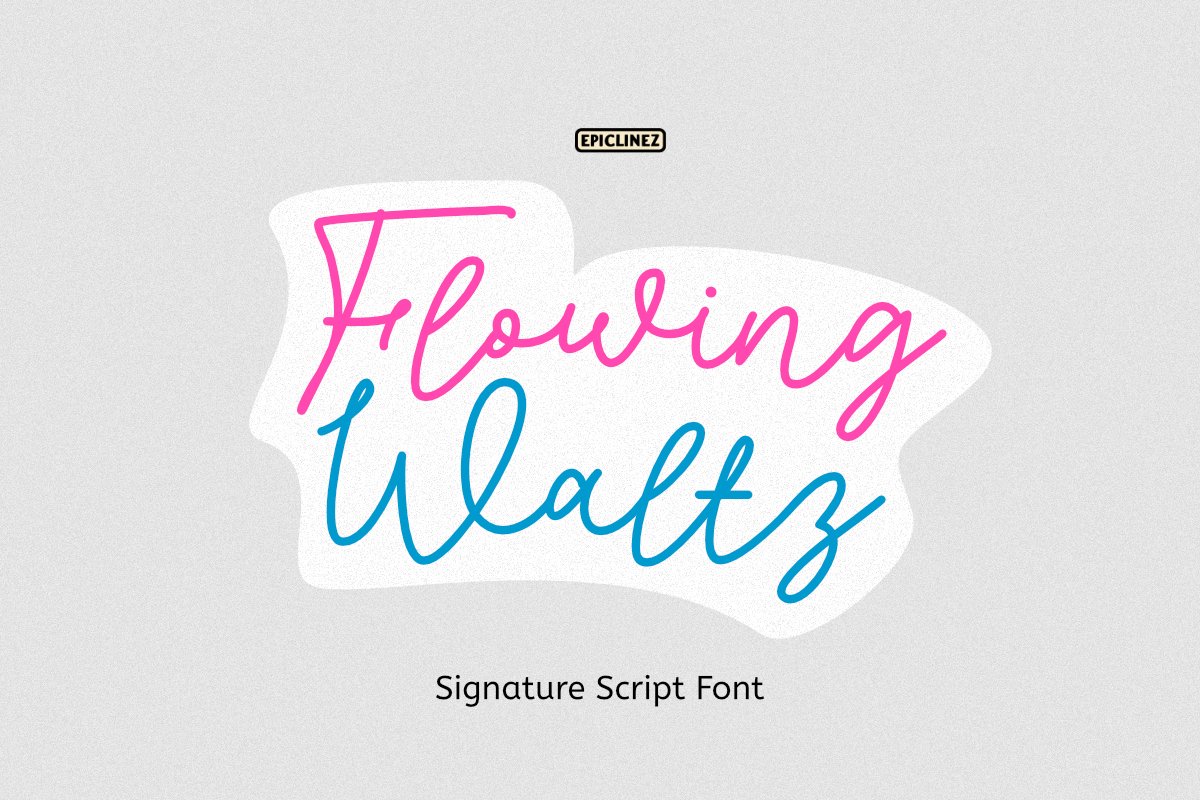
Flowing Waltz is a stylish signature font with a natural flowing style. This font is a good choice for brandings, High-end, sophisticated branding design. Its PUA encoded and it also has multilingual supports.